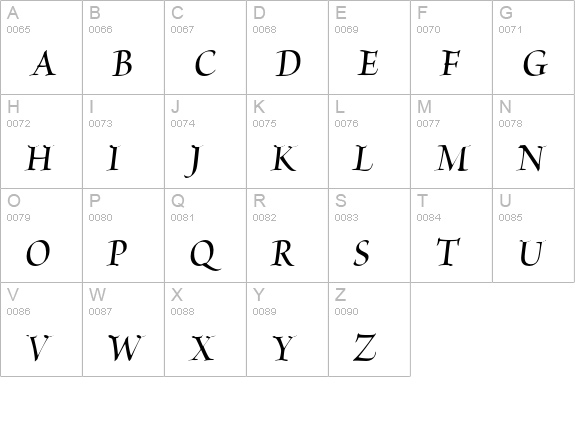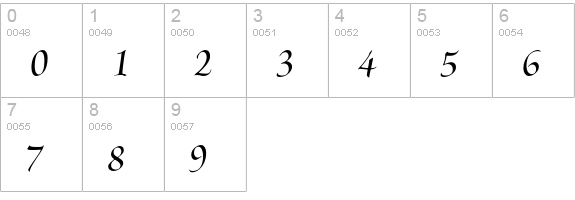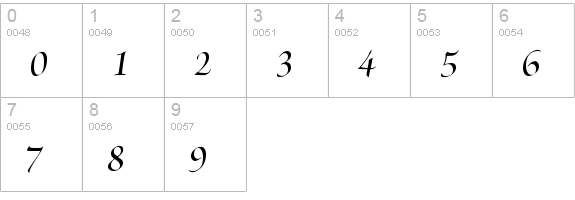
Brioso Pro Semibold Italic Display Font Details
Brioso Pro Semibold Italic Display is a sub-bold, structured, italic variant in the Brioso typeface family \xE2\x80\x94 well suited to sub-headlines and emphasised passages.
Brioso Pro Semibold Italic Display font exudes a sense of elegance and sophistication with its sleek lines and refined curves. This font is perfect for making a statement in headlines, titles, and other display settings. The semi-bold weight adds a touch of boldness, while the italic styling brings a sense of dynamic movement to your designs. What sets Brioso Pro Semibold Italic Display font apart is not just its beauty, but also its accessibility. This font is freely available to download at FontsMarket.com, allowing designers and creatives to elevate their projects without breaking the bank. Whether you're working on a branding project, editorial design, or any other creative endeavor, Brioso Pro Semibold Italic Display font is a versatile choice that can add a touch of sophistication to any design.